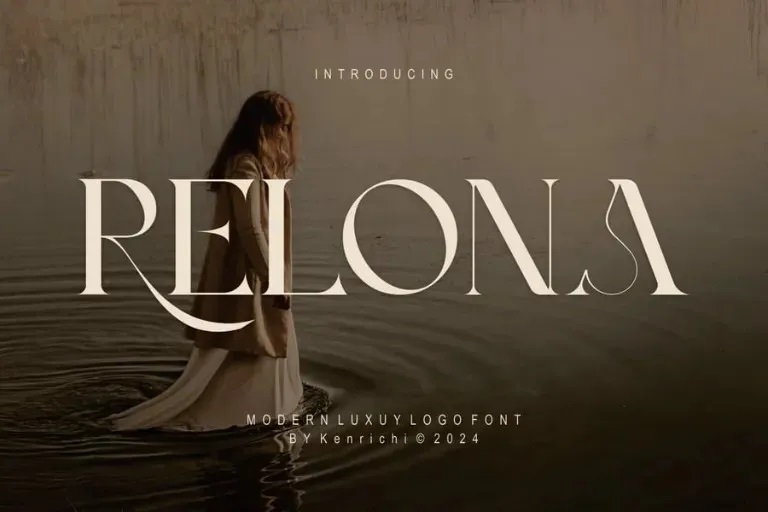
Relona Font
Relona is nice and clean modern serif font and an authentic, non-sleek typeface. Ideal for the corporate and packaging requirement of a product. This font is ideal for any branding project including quotes, logo, blog header, poster, banner, letter, invitation, stationery and so on. Intended to be operational across various projects and forms of media planned as exceptional across numerous types of settings.
Relona Serif Font